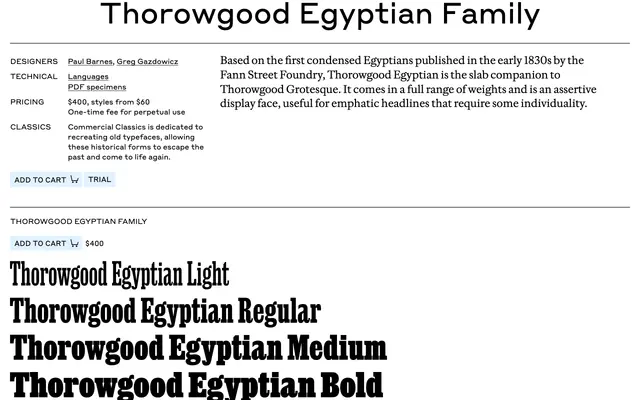
Thorowgood Egyptian
A six-weight Egyptian slab from Commercial Type, drawn from the William Thorowgood archive of nineteenth century display type.
An Egyptian slab from Commercial Type, drawn from the nineteenth century output of William Thorowgood's London foundry. Twelve styles run across six weights from Light to Black with matching italics, and the family ships with a variable font for fluid weight control. Sits in editorial, packaging and identity work that wants Victorian weight and slab geometry without losing contemporary build quality.
Commercial Type list Thorowgood Egyptian as part of their reworking of the nineteenth century Thorowgood foundry archive. A heavy egyptian slab with six weights, matching italics and a variable font release.